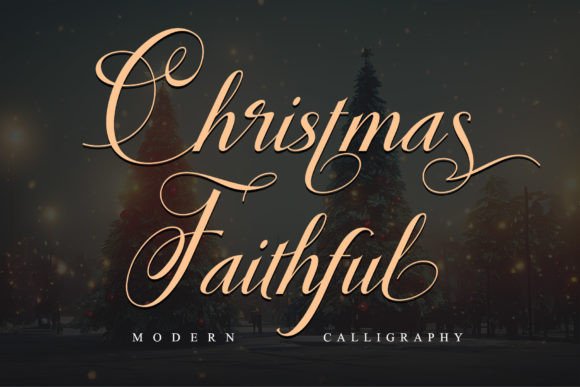
Journey into a winter wonderland with Christmas Faithful – An enchanting calligraphy font that blends the charm of festive nights with a touch of elegance. Crafted by the skilled hands of thomasaradea, this script font exudes an allure that is sure to captivate your audience.
With its graceful swashes and meticulous detailing, Christmas Faithful effortlessly adds a touch of magic to any digital magazine. Whether you're creating holiday greetings, designing whimsical invitations, or crafting enchanting social media posts, this font is your perfect companion.
Imagine your words dancing across the screen, adorned with the festive spirit of Christmas Faithful. Its playful curves and elegant flourishes will add a touch of whimsy, while its sophisticated design ensures a polished look.
Christmas Faithful is more than just a font; it's an invitation to let your creativity run wild. Dive into a world of festive designs, where snowflakes swirl and candy canes dance. Create holiday-themed logos that sparkle with cheer, design eye-catching posters that spread joy, or craft enchanting invitations that promise a magical experience.
With its PUA encoding, Christmas Faithful grants you effortless access to a realm of glyphs and swashes. Unleash your imagination and let the creative possibilities flow.
So, embrace the magic of Christmas Faithful and let your digital magazine shine with festive flair. Its versatility knows no bounds, making it the perfect choice for any holiday-themed design project.